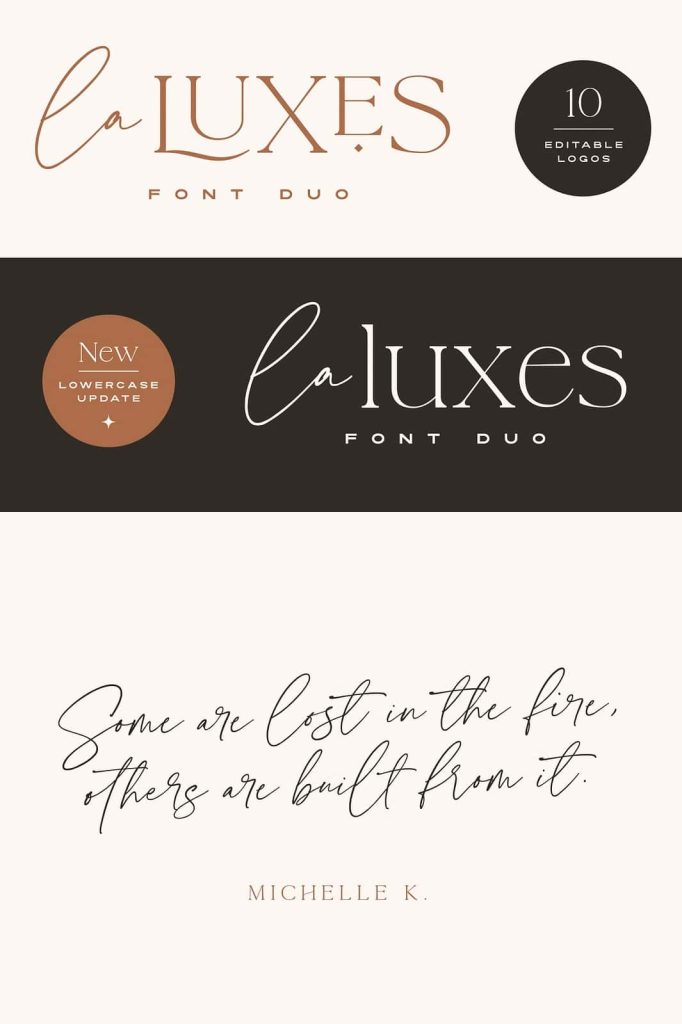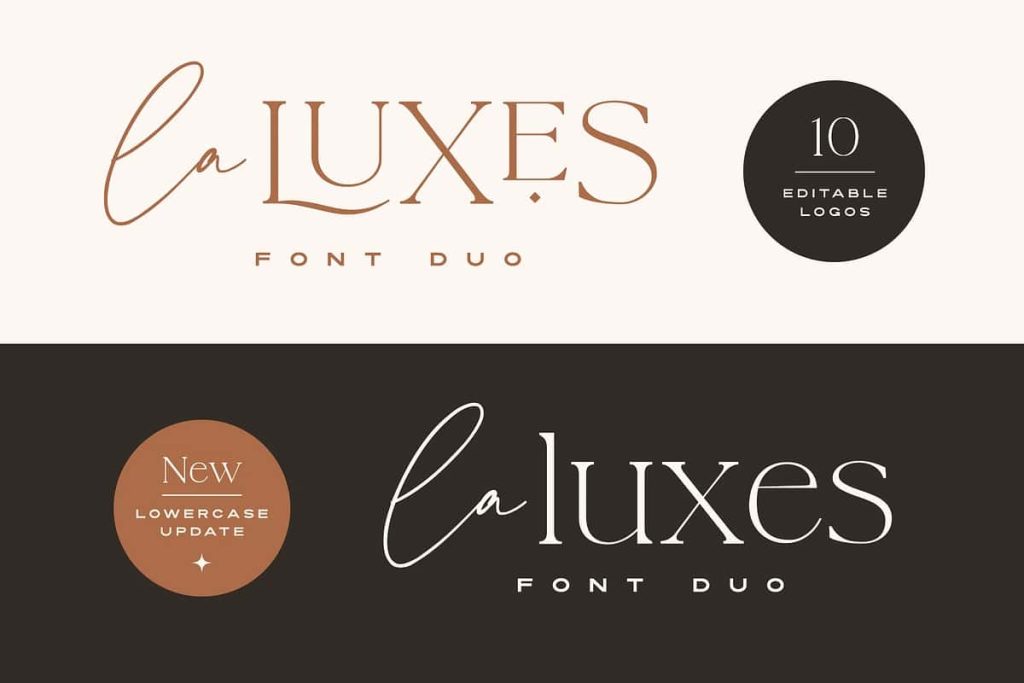
La Luxes Font Duo + Logos (Updated!)
La Luxes Font Duo – A Luxurious Typography Pairing for Timeless Design
La Luxes Font Duo is a beautifully refined typography pairing that exudes elegance, sophistication, and timeless appeal. This classic combination includes a graceful Script font and a ligature-rich Serif typeface, designed to work seamlessly together or stand out individually. Crafted for designers who value both beauty and precision, La Luxes offers endless creative possibilities for branding, packaging, editorial layouts, and digital design projects. It’s the perfect choice for those who want to bring a touch of luxury and refinement to their typography.
A Perfect Balance of Script and Serif Elegance
The La Luxes Font Duo captures the harmony between two classic typographic styles. The Script font delivers fluid, elegant strokes reminiscent of fine calligraphy, while the Serif font brings structure, sophistication, and a wealth of beautiful ligatures. When combined, these fonts create a dynamic balance—ideal for logos, invitations, product labels, fashion branding, and high-end marketing materials.
Each typeface is crafted with precision to ensure visual balance and versatility. The Script font adds an expressive, personal touch to designs, while the Serif version enhances legibility and sophistication. This combination makes La Luxes a powerful tool for creative professionals who want to elevate their designs with subtle glamour and distinction.
Enhance Your Brand with Effortless Luxury
La Luxes is more than just a font—it’s a complete design experience. The elegant Script typeface brings artistic emotion to your words, while the Serif font grounds your typography with a timeless, high-fashion feel. Together, they reflect luxury and modern elegance, making them perfect for beauty products, fashion boutiques, jewelry brands, and premium lifestyle projects.
This typeface duo has been designed to complement each other perfectly, creating a cohesive visual language that speaks sophistication. Whether you are crafting a wedding invitation, a brand identity, or luxury packaging, La Luxes ensures your message is communicated with style and grace. The attention to detail in every curve and ligature guarantees your designs will stand out with class and precision.
Exclusive Bonus: 10 Editable Logo Templates
To make your creative process even smoother, La Luxes Font Duo includes 10 professionally designed logo templates. These templates are fully editable using Adobe Photoshop or Adobe Illustrator, allowing you to customize and create beautiful logos within minutes. Each template has been designed to highlight the elegance of the La Luxes fonts, helping you produce premium branding materials quickly and easily.
• 10 Ready-to-Use Logo Templates – Professionally designed for effortless customization.
• Elegant Font Pairing – Perfect blend of Script and Serif typefaces for harmonious design.
• Luxury Aesthetic – Ideal for high-end branding and elegant visual projects.
• Time-Saving Design Resource – Create professional logos in minutes with ready-made templates.
Versatility Across All Design Mediums
La Luxes is crafted to perform beautifully across various design formats, from digital displays to high-resolution print materials. Its clean lines and luxurious textures make it an excellent choice for editorial layouts, website headers, advertising campaigns, and premium packaging. The Script’s graceful flow and the Serif’s refined ligatures work together to establish a consistent, upscale brand presence across all touchpoints.
Each style within the La Luxes family maintains strong readability, even at smaller sizes, making it suitable for both display and paragraph text. The combination of expressive flourishes and structured letterforms ensures your typography remains captivating without sacrificing clarity.
Why Designers Love La Luxes Font Duo
Designers choose La Luxes because it captures the essence of luxury design in a versatile, easy-to-use font pairing. The thoughtful craftsmanship of the Script and Serif fonts allows for seamless integration into a wide range of visual styles—from classic and romantic to modern and editorial. This duality makes it a go-to choice for designers, agencies, and creatives seeking to create refined, timeless, and visually captivating work.
The inclusion of editable logo templates adds further value, giving professionals a ready-made design solution for brand identities and presentations. With La Luxes, you can create memorable logos, elegant invitations, and sophisticated product designs that exude exclusivity and charm.
Conclusion: Elevate Your Design with La Luxes Font Duo
La Luxes Font Duo redefines modern elegance in typography. With its pairing of an expressive Script and a ligature-rich Serif, it offers unmatched sophistication and versatility. Perfect for luxury branding, wedding stationery, and editorial design, La Luxes transforms words into works of art. The addition of 10 customizable logo templates ensures that you can achieve professional, high-end results effortlessly. Choose La Luxes to elevate your next project and bring a touch of refined beauty to your typography.